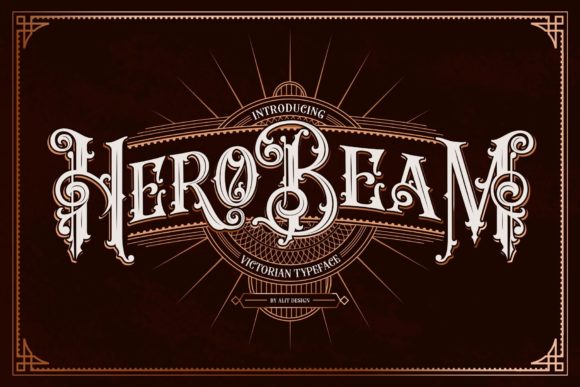
Introducing Hero Beam Font, the ultimate blackletter font that is guaranteed to add a touch of Victorian-style boldness to your designs. Created by the experts at Alit Design, this font is perfect for tattoo designs, and its uniqueness will set your creations apart from the rest.
What sets Hero Beam Font apart is its PUA encoding, which allows easy access to all the glyphs and swashes. This means that you can create stunning designs effortlessly, and let your imagination run wild with the unlimited possibilities that this font offers.
With its bold and distinct look, Hero Beam Font is perfect for designers who want to make a statement with their designs. Whether you're creating posters, logos, or even apparel designs, this font will elevate your creations and give them a timeless appeal.
Furthermore, Hero Beam Font is not just a font, it's a tool that empowers you to unleash your creativity. With its vast array of glyphs and swashes, you can create unique designs that capture the essence of your brand or message. The font's elegance and sophistication make it the perfect choice for luxury brands, while its edginess makes it a must-have for tattoo designs.
In conclusion, Hero Beam Font is the perfect font for designers who want to create bold and daring designs that capture the essence of their brand or message. With its Victorian-style blackletter design, PUA encoding, and vast array of glyphs and swashes, this font is an essential tool that every designer needs in their arsenal. Download it today and let your creativity soar!